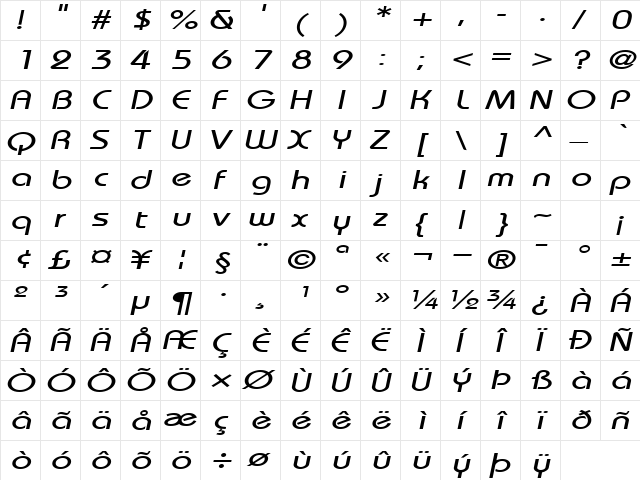
UniqueExtended Oblique
Design Context for UniqueExtended Typeface
UniqueExtended is a composed and adaptable typeface that performs quietly and consistently across a wide range of design contexts. The dynamic lean of this cut emphasises speed and emphasis in any layout.
Pro Tip: Try UniqueExtended for annotation and caption copy alongside an upright companion — the contrast in angle creates a dynamic but ordered typographic system.